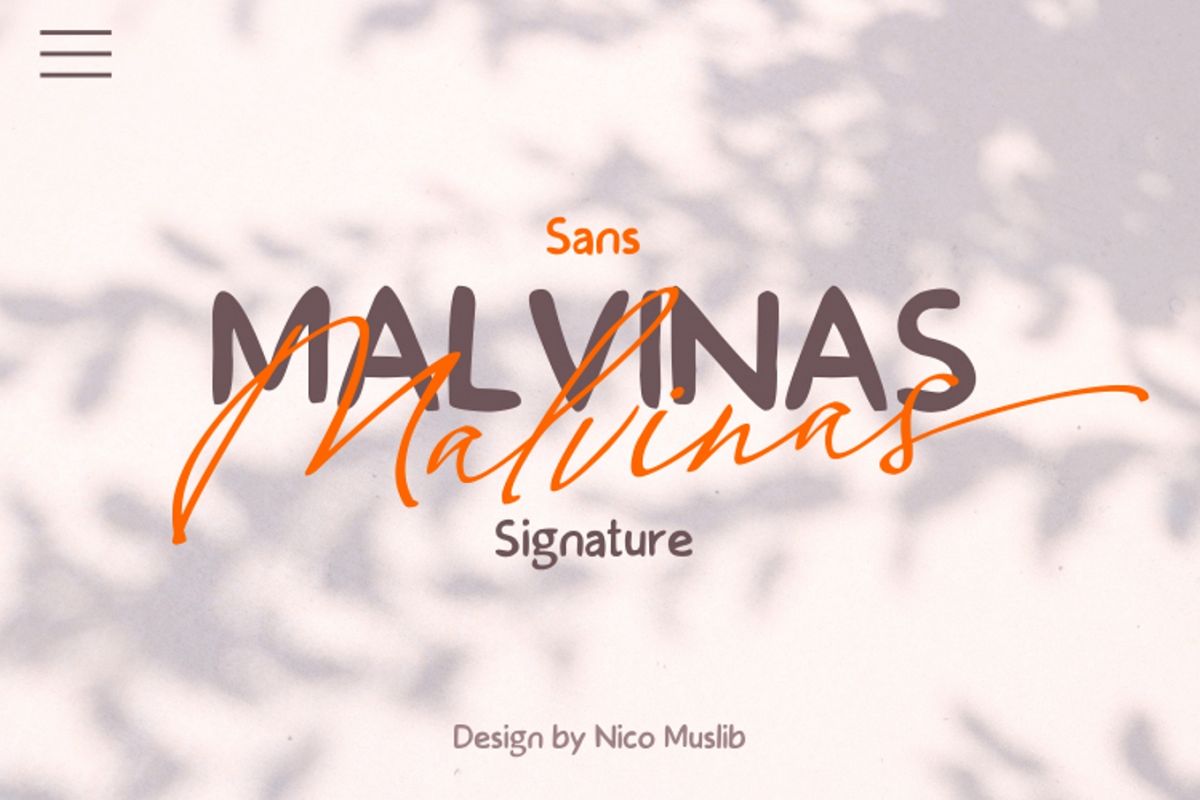
Malvinas Font Duo
Malvinas Sign
Malvinas Sans
Introducing
Malvinas Font Duo! This is a beautiful hand drawn font collection of two Script Signature fonts and Sans Serif font.
It’s a pretty handwritten font duo font with a unique and elegant feel. Use both font styles together to customize your project and impress readers. Perfectly combined typographic harmony is perfect for posters, greeting cards, t-shits, branding materials, quotes and any other amazing projects you are working on. Each font can be used separately. In conjunction they give a sense of lightness and delicacy and a little vintage feel